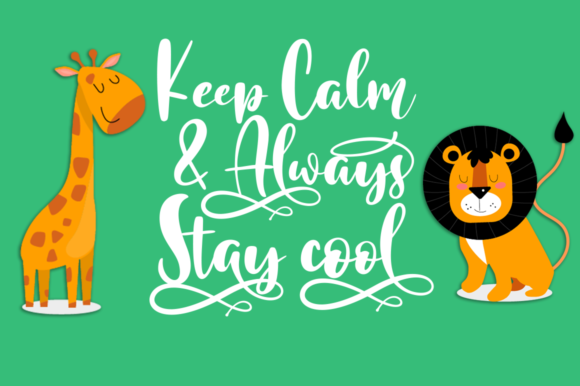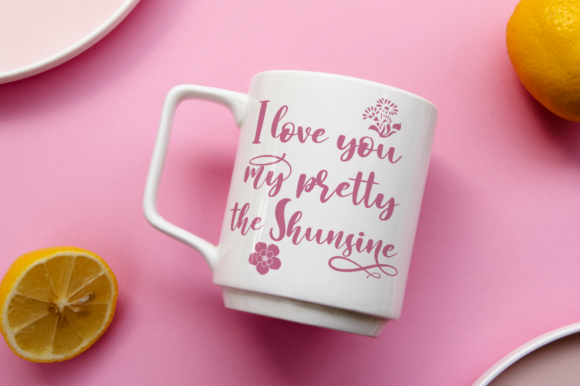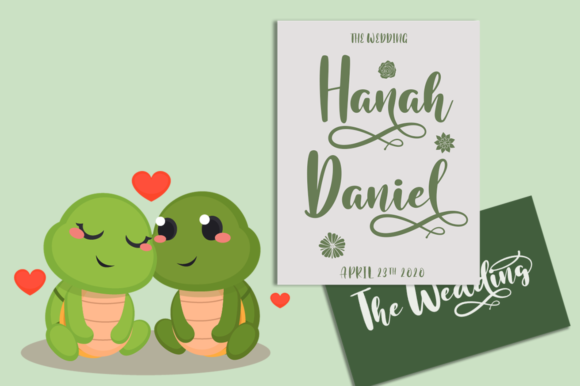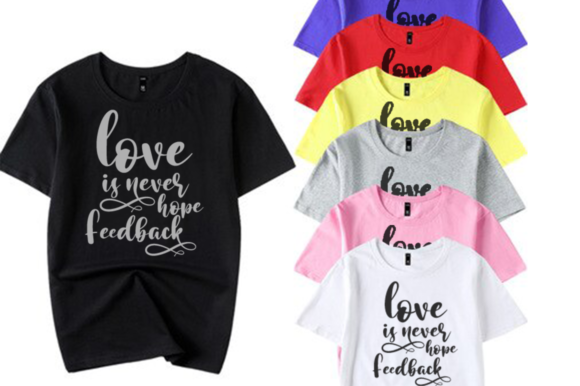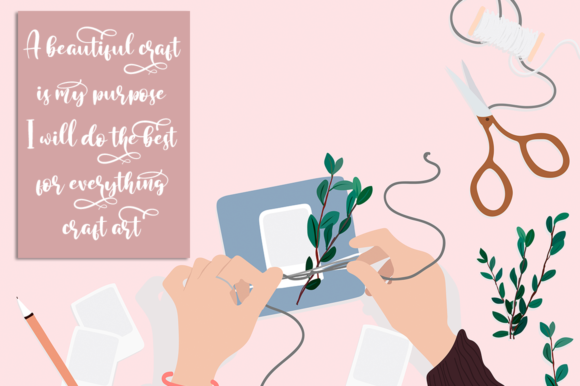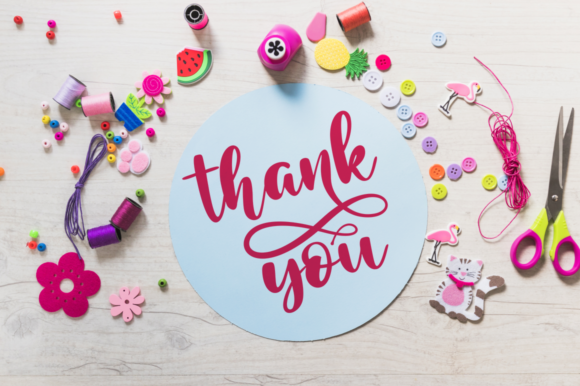
Romantic Chicago Font
About Romantic Chicago Font
Romantic Chicago is a gorgeous and playful, but also sophisticated. This versatile script font has a wide range of applications ranging from arts and crafts projects to branding and is guaranteed to add an elegant touch to your next design.
This font is PUA encoded which means you can access all of the stunning glyphs and swashes with ease! It also features a wealth of special features including alternate glyphs and ligatures.